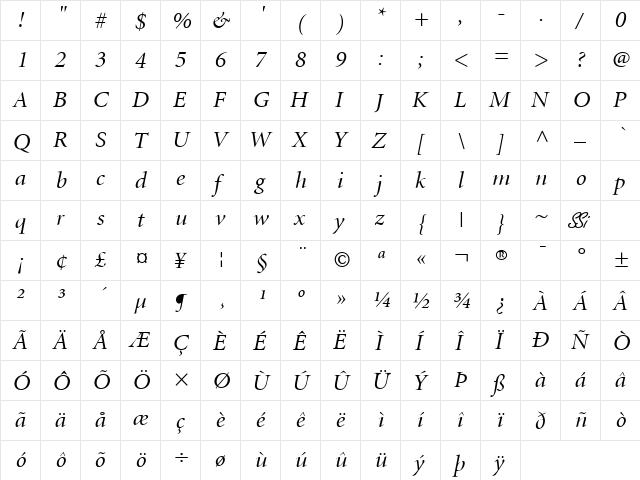
Atlantix Display SSi Display Italic
Design Context for Atlantix Display SSi Typeface
Atlantix Display SSi brings ornamental detail and strong personality to headlines and identities, where visual impact matters more than quiet functionality. The dynamic lean of this cut emphasises speed and emphasis in any layout.
Font Pairing: Pair with a clean neutral sans-serif for body copy to let Atlantix Display SSi's character lead without overwhelming the composition.
Pro Tip: Treat Atlantix Display SSi as the centrepiece of your typographic hierarchy. One strong heading set in a decorative face can carry an entire layout.